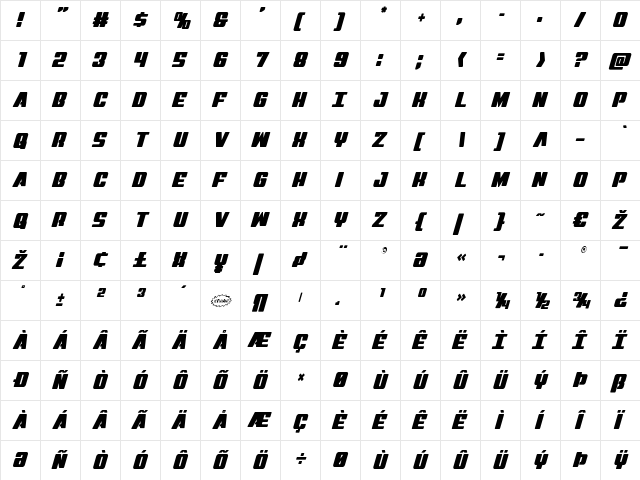
Virgin Hybrid Condensed
Design Context for Virgin Hybrid Condensed Typeface
Virgin Hybrid Condensed offers clean, dependable letterforms without strong stylistic allegiance, making it a practical choice for designers who need flexibility. Its narrow stance lets it pack a punch even in space-constrained designs.